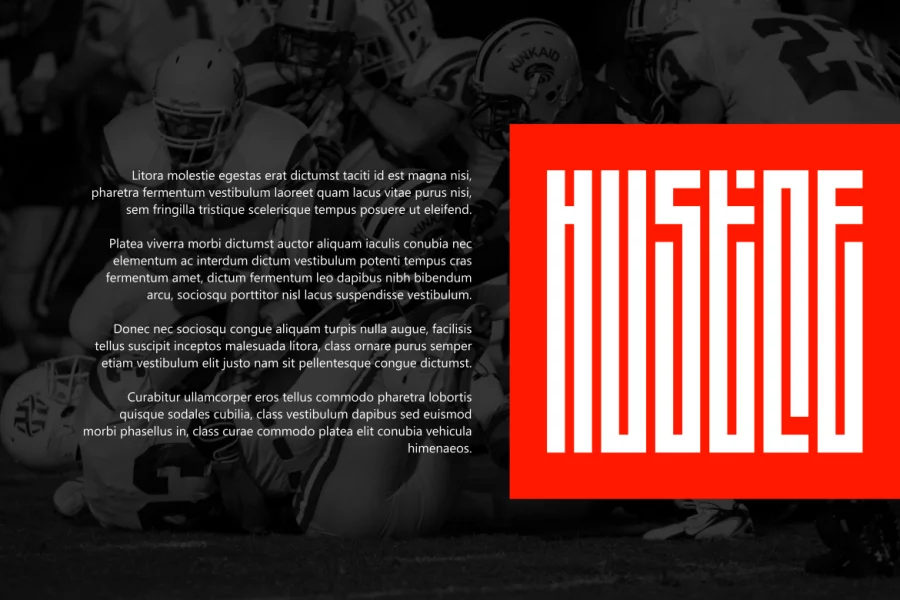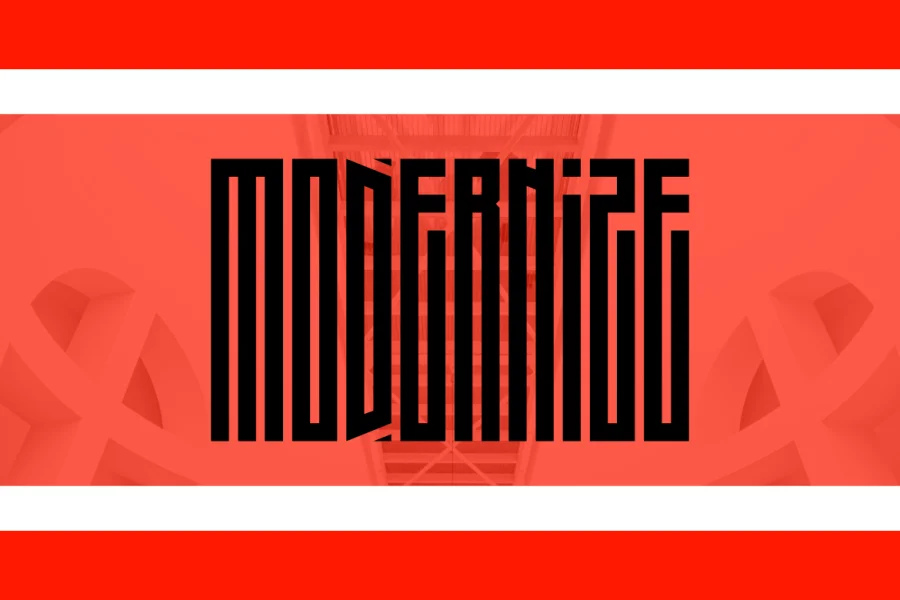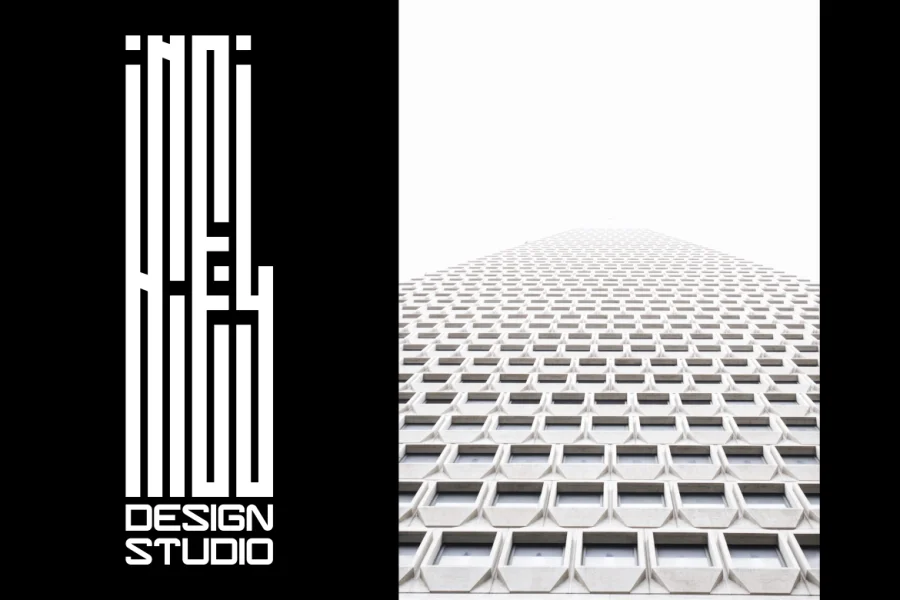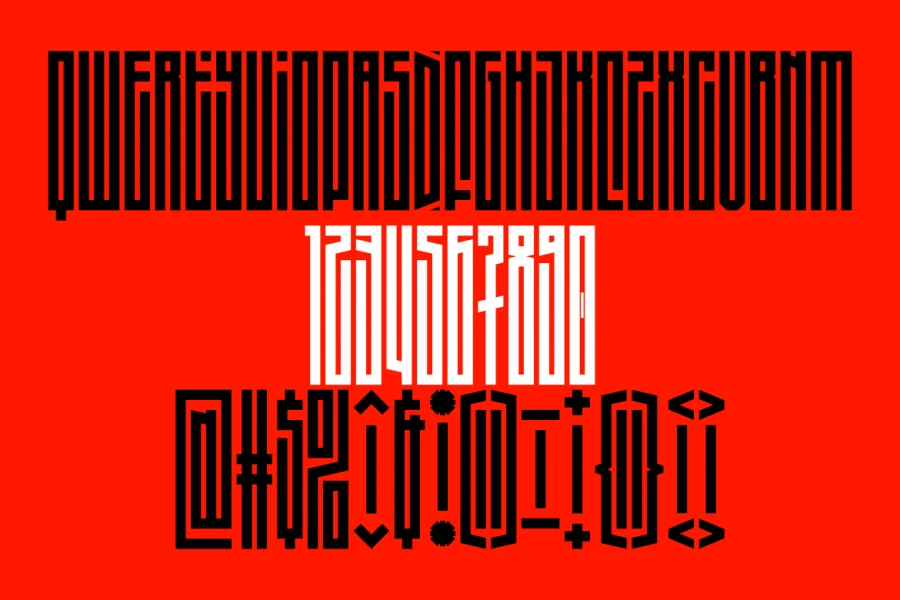
Jagatraya is a rectangular tall blocky sans serif that perfect for
modern technology article, poster, websites, and any promo material.
The tall shape giving a sophisticated tech feel, and also bring some sort of ancient technology with cryptyc language.
prepare to be aMAZEd.